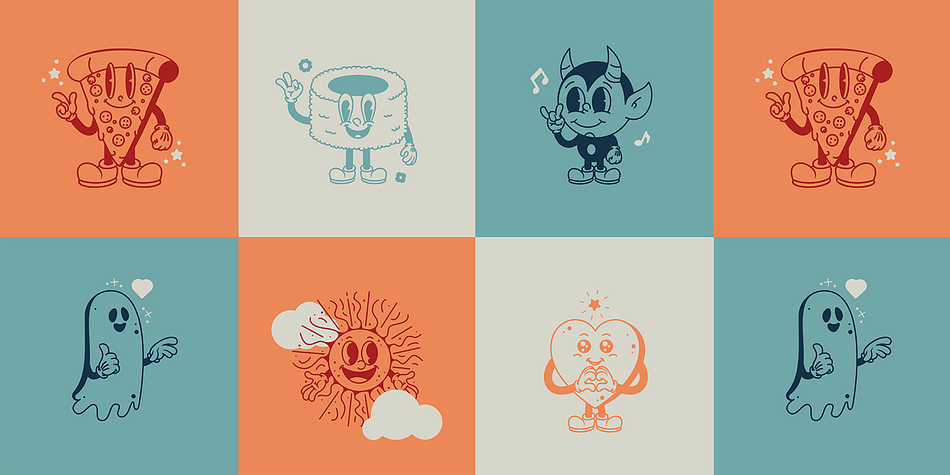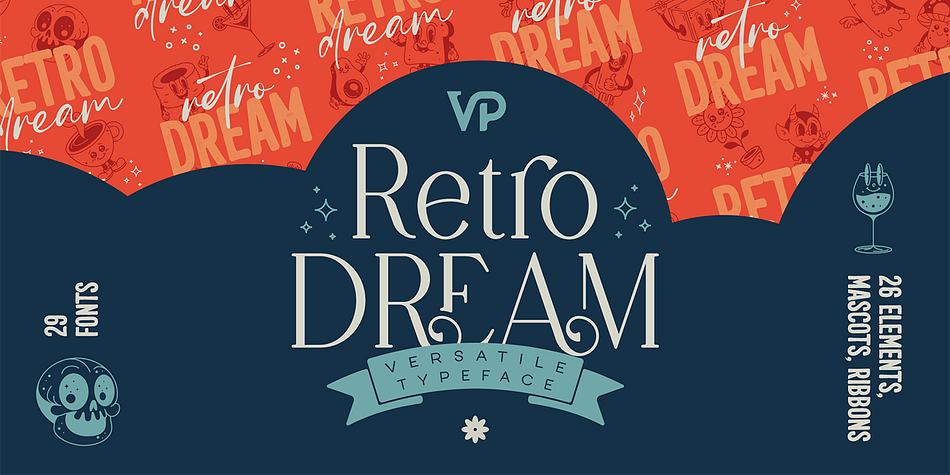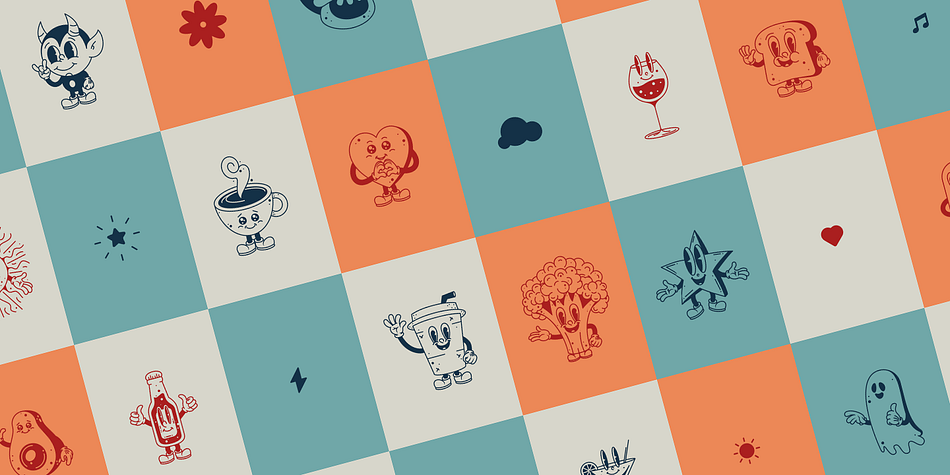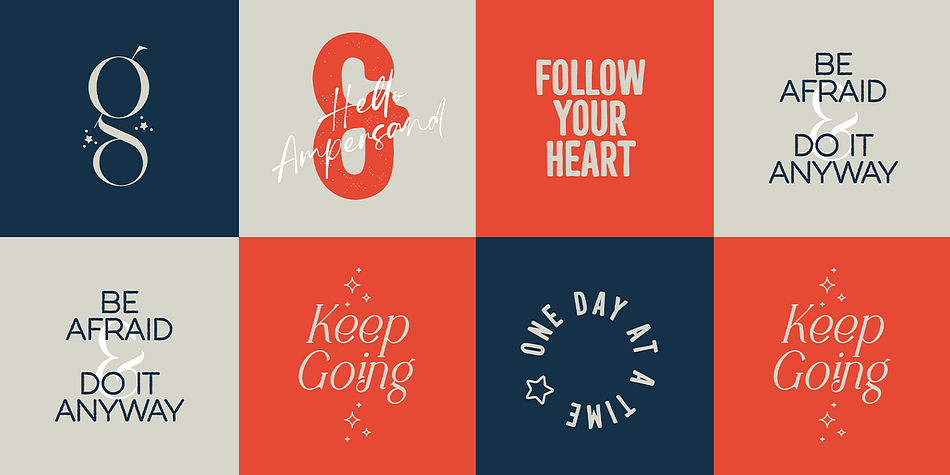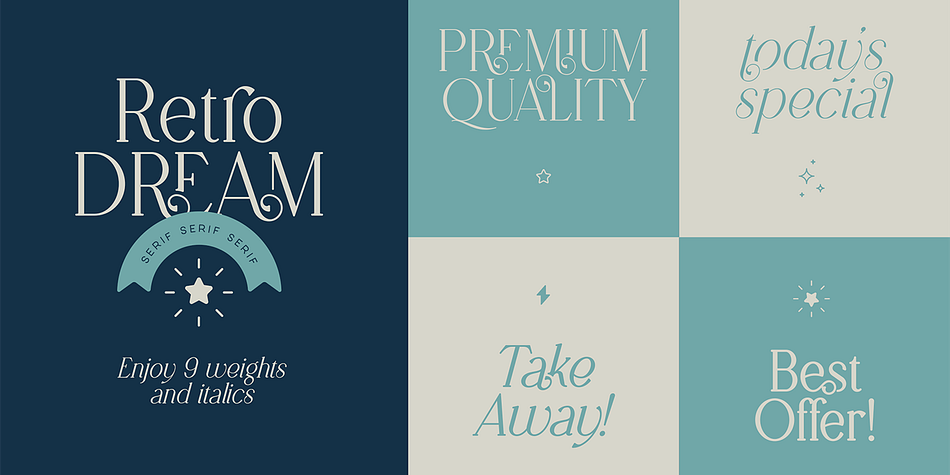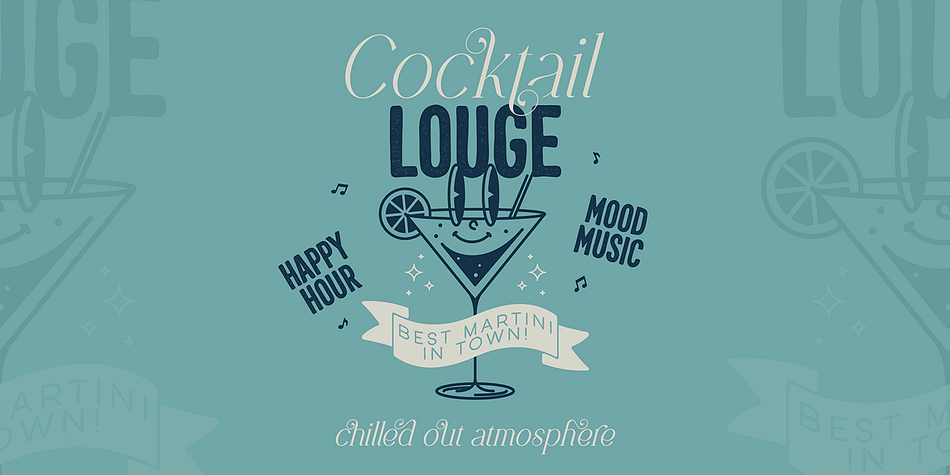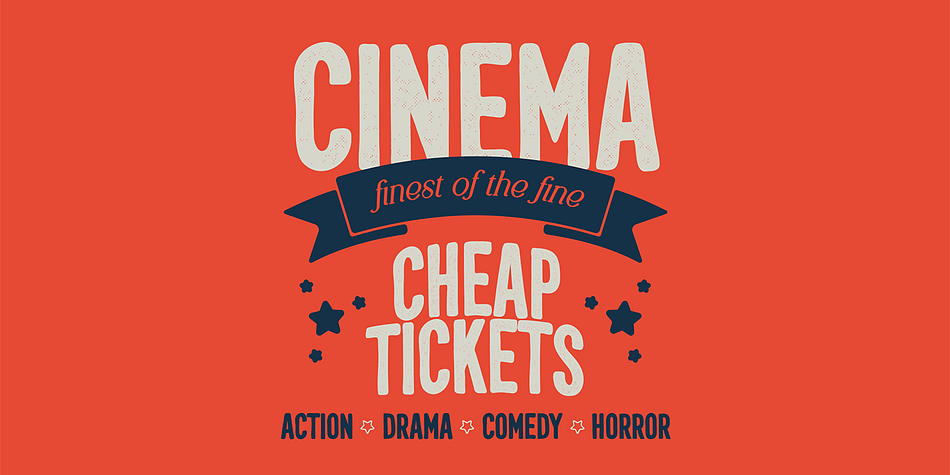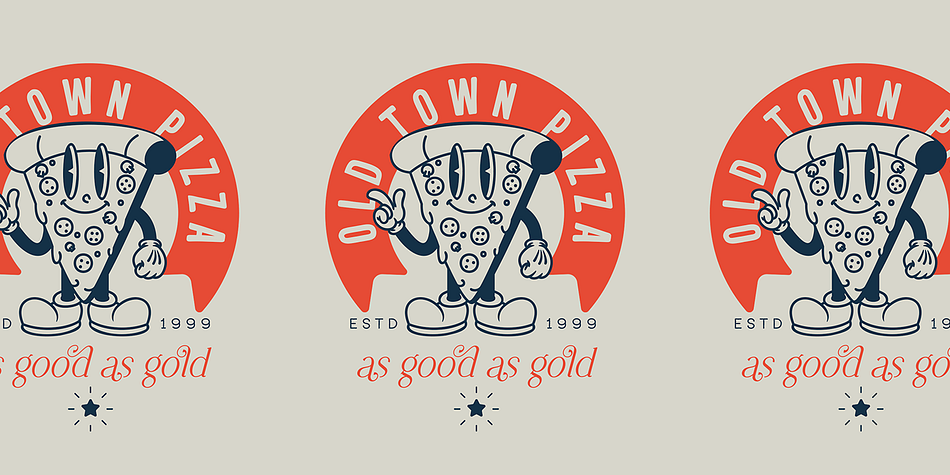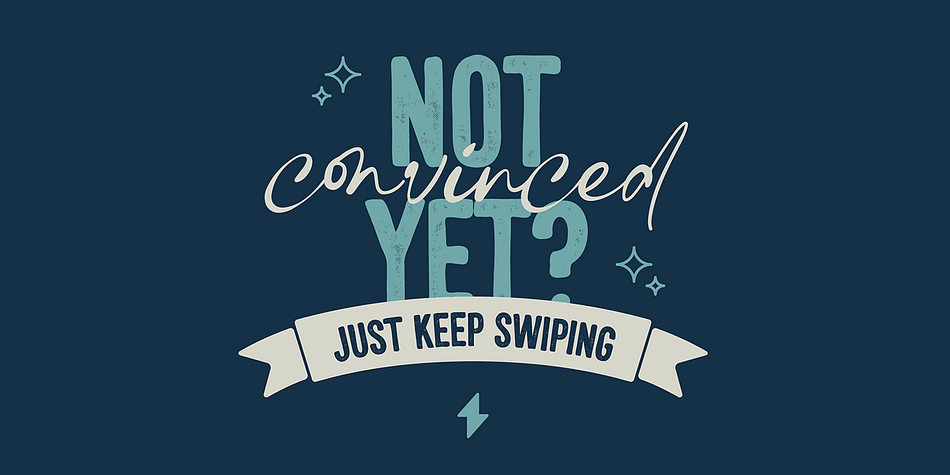
Retro Dreams
Retro Dreams is a display sans, script and dingbat font family. This typeface has twenty-nine styles and was published by VPcreativeshop.
Introducing Retro Dream - Versatile Typeface - 29 fonts
Retro Dream is a charmingly versatile typeface collection that beautifully captures the essence of nostalgia and creativity. It encompasses a rich array of 18 serif fonts, spanning 9 distinct weights along with their respective italics, ensuring a wide range of expression for any project. The collection is further enhanced with a display version available in both regular and italic, adding a striking visual appeal. Additionally, it includes unique dots and lines versions, also in regular and italic, providing delightful textures and patterns. The script variant adds a personal touch with its fluidity, while the sans rough offers a more raw, unrefined edge. Beyond these, Retro Dream surprises with 26 whimsical characters, 26 decorative ribbons, and 26 random elements, each adding a dash of whimsy and creative flair. This typeface collection is perfect for projects that require a blend of the past and present, delivering a vast spectrum of stylistic options.